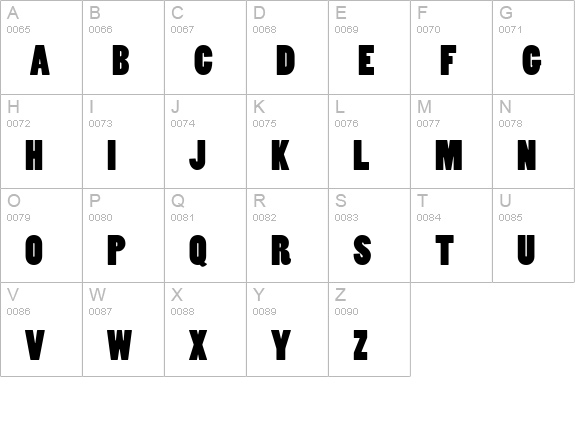
Slot SSi Black is a maximum-weight, dramatic variant in the Slot typeface family \xE2\x80\x94 well suited to maximum-impact headlines, posters, and packaging.
Introducing Slot SSi Black font, a striking and bold typeface that exudes confidence and modernity. With its clean lines and sharp edges, this font is perfect for making a bold statement in any design project. Whether you're creating eye-catching headlines, stylish logos, or attention-grabbing advertisements, Slot SSi Black font is sure to make a lasting impression. But what sets this font apart from the rest is not just its impeccable design, but also the fact that it is freely available to download at FontsMarket.com. Yes, you read that right – you can access this stunning font without any cost. FontsMarket.com is renowned for providing high-quality fonts, and Slot SSi Black font is no exception. With its wide range of characters, including uppercase letters, lowercase letters, numbers, and punctuation marks, Slot SSi Black font offers versatility and flexibility for all your design needs. Its bold and commanding presence will make your text stand out, capturing the attention of your audience effortlessly. Whether you're a professional designer or a design enthusiast, Slot SSi Black font is a must-have addition to your font library. Its sleek and modern aesthetic will elevate your designs to new heights, giving them a professional and polished look. So why wait? Don't miss out on the opportunity to enhance your design projects with the striking Slot SSi Black font. Head over to FontsMarket.com and grab your free download today. Unleash your creativity and let this font take your designs to the next level.